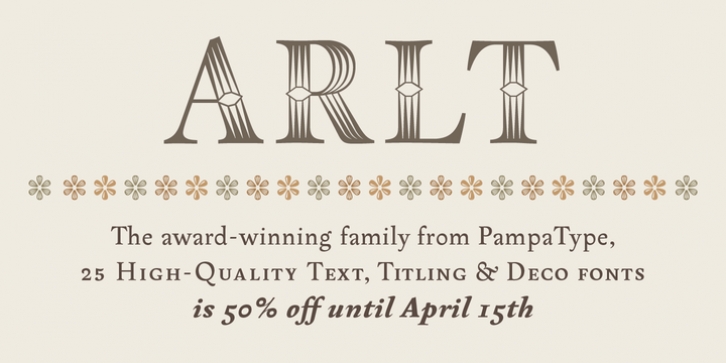
Arlt is a family of contemporary typefaces for a wide variety of applications. It includes text, display, and decorative fonts. Its style gives the text a sort of spicy atmosphere that makes it ideal for composing literature. Arlt has been created for the demanding, inspired designers. Being the result of 3 years of intensive work, the types aim to balance a strong personality against comfortable readability. The fonts have been carefully crafted in every detail, to offer you the highest visual quality standards in typography.
Arlt is inspired by the novels and plays of Argentinean writer Roberto Arlt, active in the 20s and 30s. He pioneered the introduction of Lunfardo (Buenos Aires slang) into literature, and he was the first to write about the crook and the madman. His novels and plays refreshed the spirit of Hispanic literature of early 20th century, and anticipated the work of English-speaking writers such as Irvine Welsh or William Burroughs.
Arlt is a complex typeface. Its characters have vigorous counterforms. As individual shapes the letterforms can feel impulsive and capricious, but once they are combined into words, they look elegant and sober. The text line in Arlt creates a dynamic, stimulating rhythm, which is still very comfortable at immersed reading.
Arlt is a contemporary interpretation of the alphabet which finds inspiration in some classic sources. The italics are linked to the glamorous, mannerist typography of 17th century Baroque (Dutch designer Christoffel van Dijck, Hungarian printer Miklós Kis). While the romans are a new attempt at capturing the warmth and vehemence of Expressionism. This style may be traced back to the 18th century: the singular work of German punchcutter Christian Zinck, and later to some 20th century East European type designers such as Preissig, Dyrynk, Menhart, and Frantisek Storm, probably today’s finest representative.
Arlt includes 11 text fonts with roman, italic, and small caps in 4 different weights.
The titling versions of Arlt include 4 delicate, space-saving fonts: romans and italics in two weights; and it also include a bold, elegant open face for special occasions (Arlt Titulo Hueca). The vigorous spirit of the text is slightly tempered in the titling versions for its use within bigger body sizes.
Both text and titling versions of Arlt take advantage of valuable OpenType features: stylistic alternates for capitals and lowercases, some refined ligatures, and 4 different sets of figures (proportional oldstyle, proportional lining, tabular oldstyle, tabular lining). Small caps have their own figures design.
Arlt 7 Locos is a series of seven irreverent fonts inspired by the harsh voices of the characters of “Seven Madmen”, the most celebrated novel by Roberto Arlt. Arlt 7 Locos fonts are based on the proportions and rhythmic qualities of the text romans, but their outlines have been carefully deconstructed, giving the text a spicier and more expressive flavor. All 7 Locos fonts share the exact spacing and metrics, so they are interchangeable, with the advantage of leaving texts lengths untouched. Eyecatching at big sizes due to its expressiveness, but perfectly readable at tiny body sizes, these seven fonts offer you a variety of expressive tones and slightly rough textures, good for irreverent messages and slang tongues.
Finally there is Arlt Deco. The obvious pun with ‘Art Deco’ just has to do with the natural difficulties of pronouncing correctly the name “Arlt” (it was actually so for Roberto Arlt himself). These two decorative fonts took much design and detail work, in particular Arlt Deco 2. Arlt Decos are a new, contemporary reinterpretation of 19th century, Victorian ornamental faces, mostly used in advertising and posters, and usually missing in today’s designers typographic preferences.